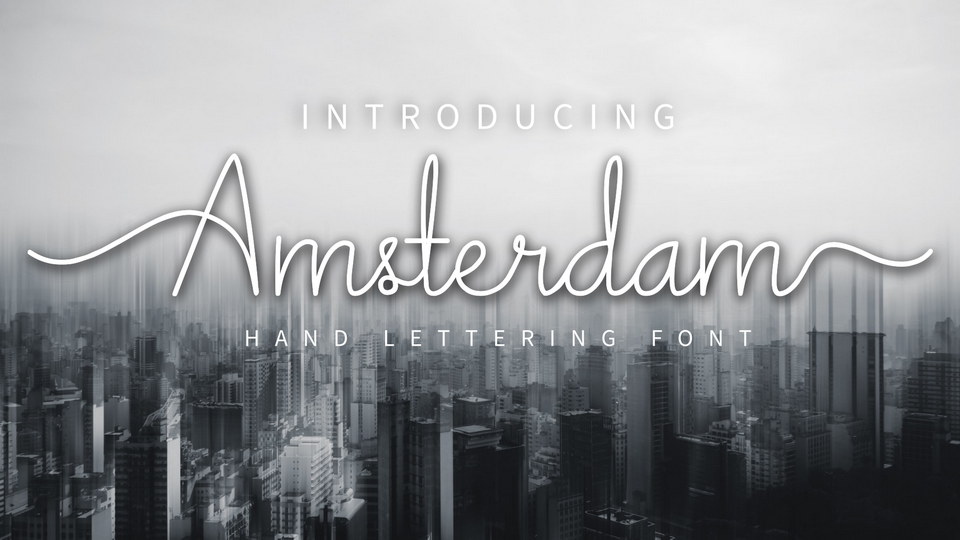
Download Amsterdam font, a beautiful and natural monoline script typeface. Amsterdam font is suitable for branding, wedding invitations, and other romantic projects.
Designer: Goodrichees